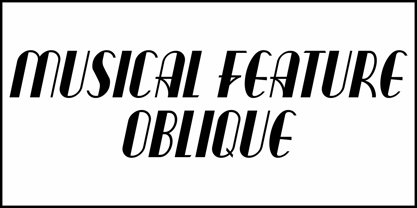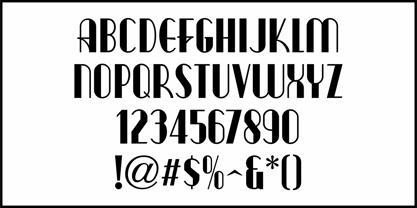
Musical Feature JNL
by Jeff Levine
The Musical Feature JNL Font Family was designed by Jeff Levine and published by Jeff Levine. Musical Feature JNL contains 2 styles and family package options. More about this family
Inside the November, 1933 issue of Movie Mirror magazine was an ad for the James Cagney musical feature "Footlight Parade". The hand lettering was done in a thick and thin Art Deco sans design - one of many similar lettering styles that popularized the "streamlined" look of the 1930s and 1940s.
This is now available as Musical Feature JNL, in both regular and oblique versions.
Musical Feature JNL